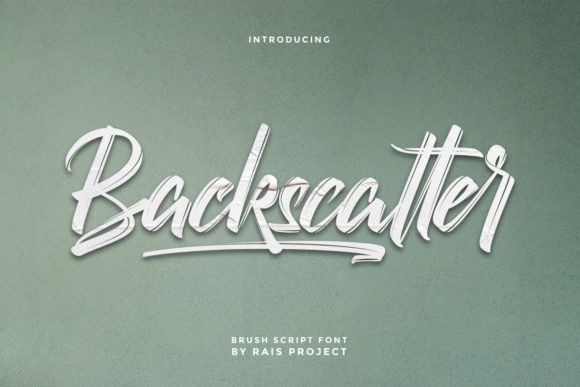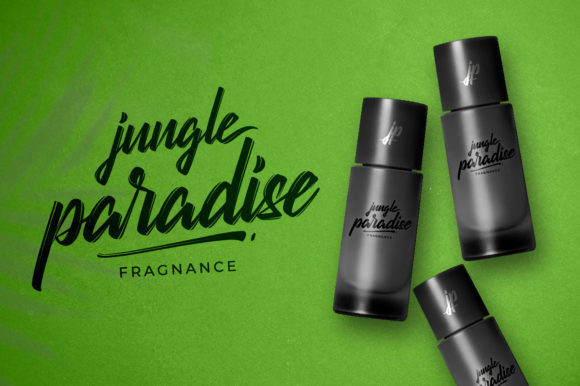
Backscatter Font
Backscatter is a beautiful and cursive brushed script font. This font reads as strong, confident, and dynamic and can add tons of nostalgic character to your designs.
Backscatter is PUA encoded which means you can access all of the glyphs and swashes with ease!